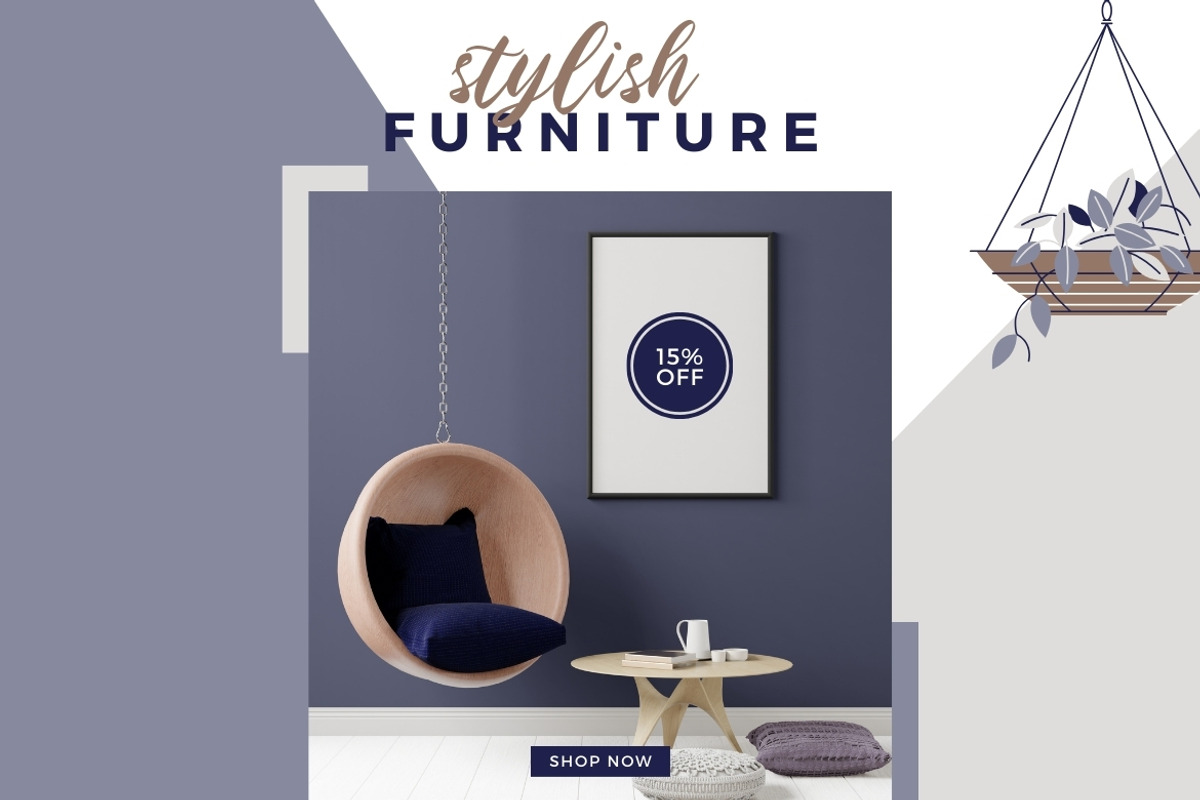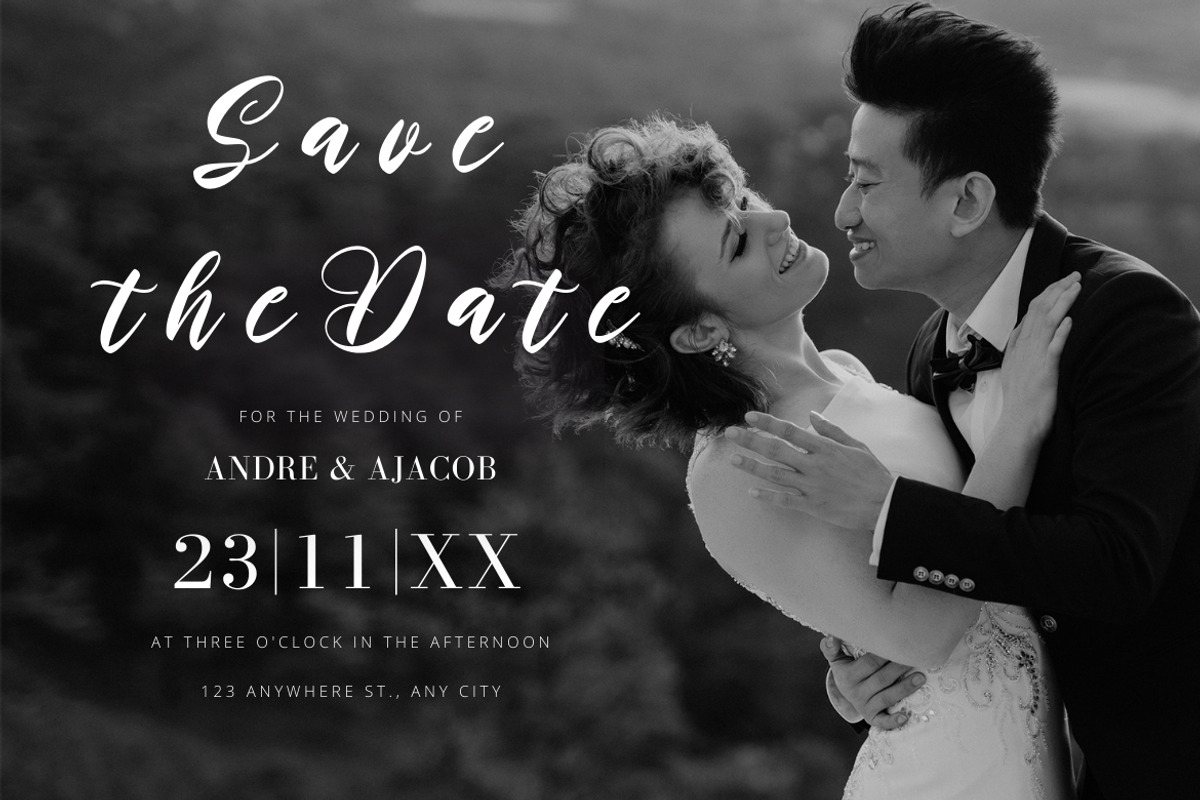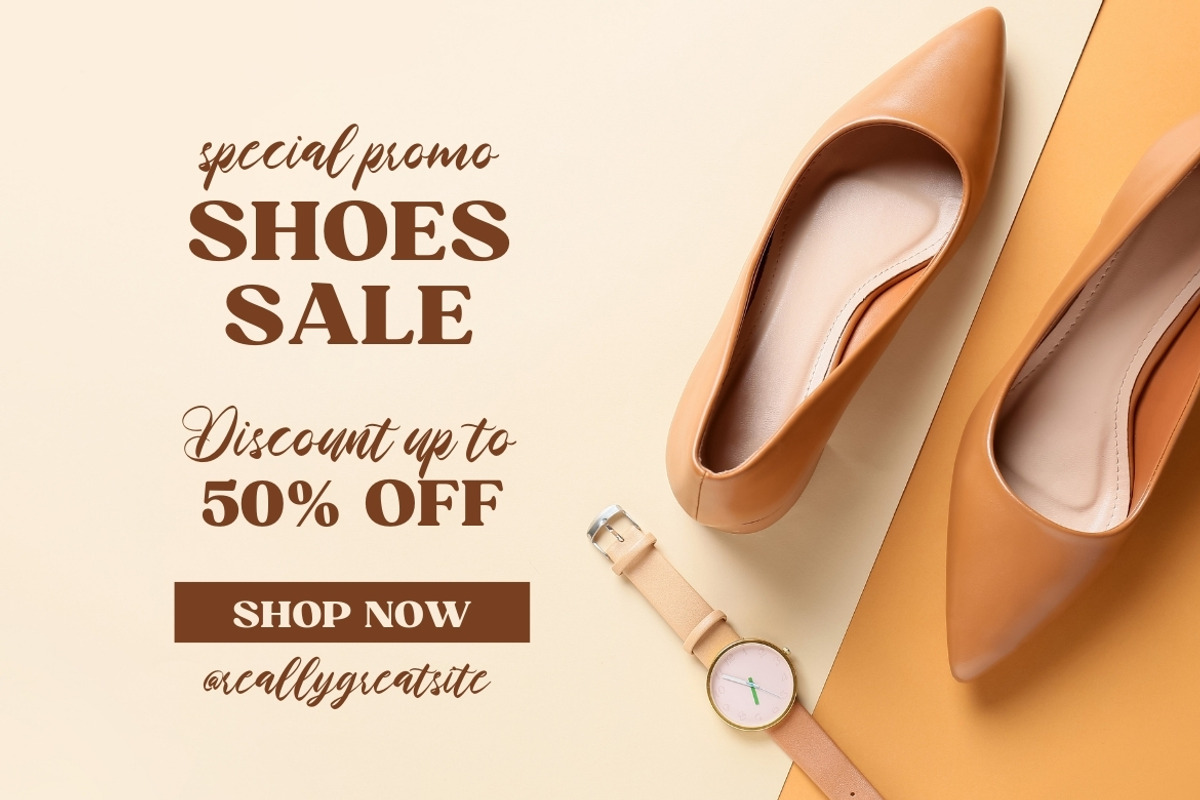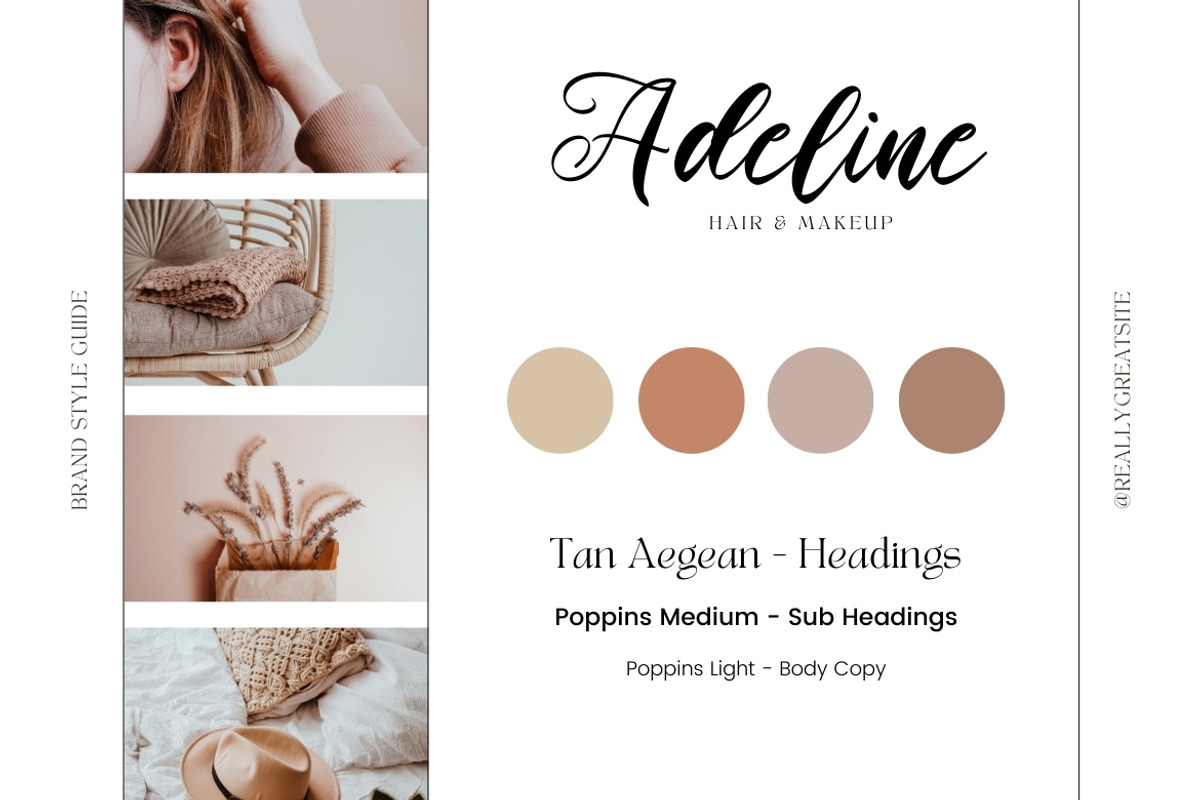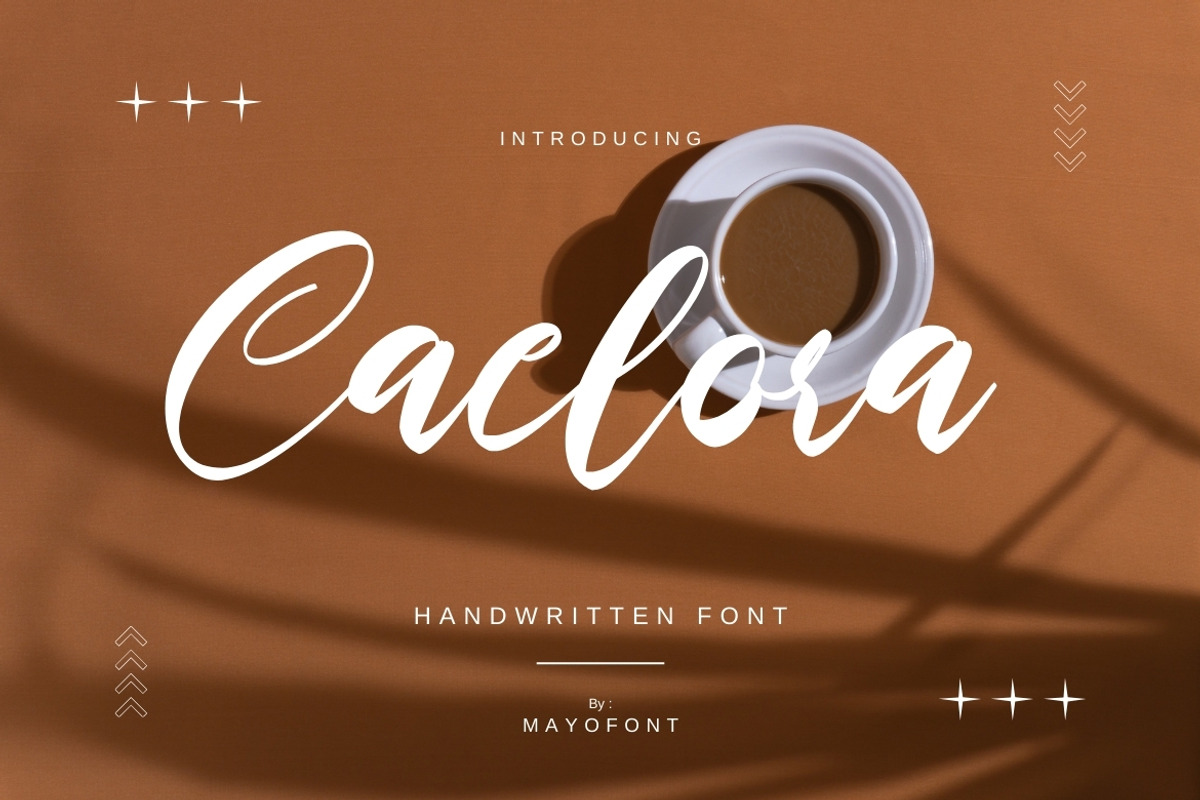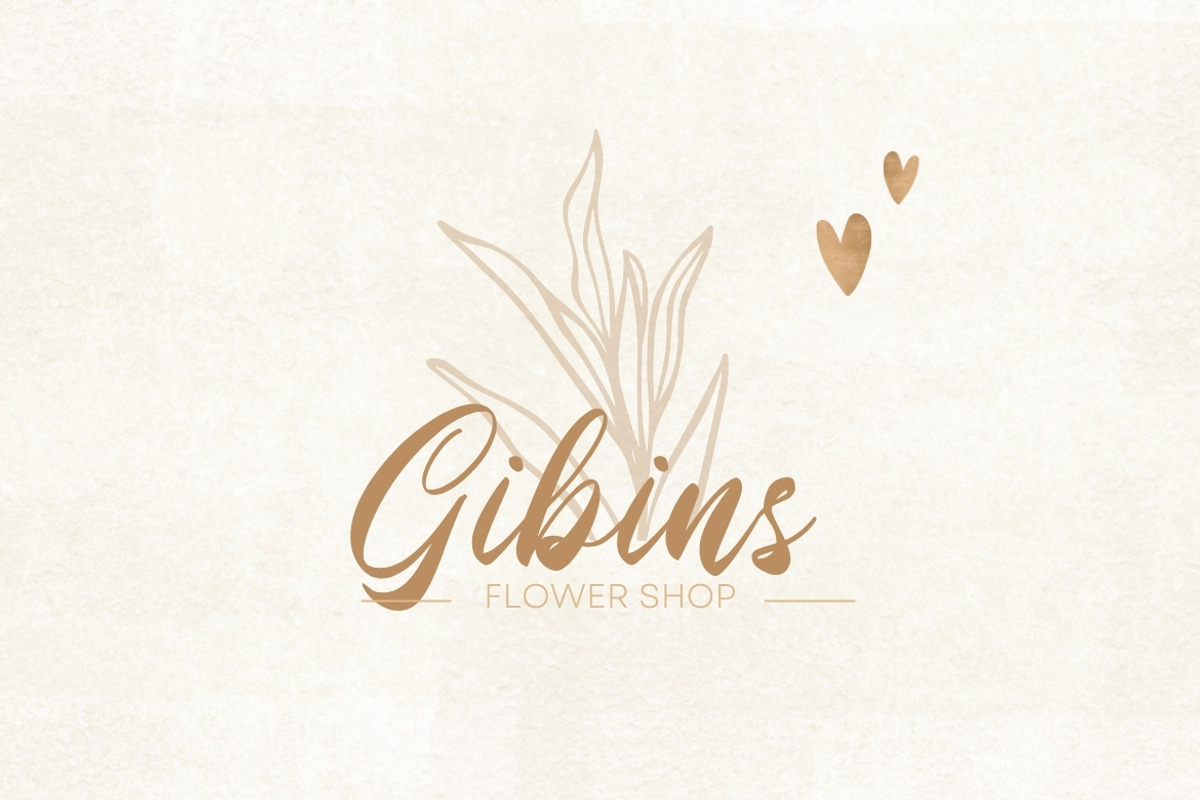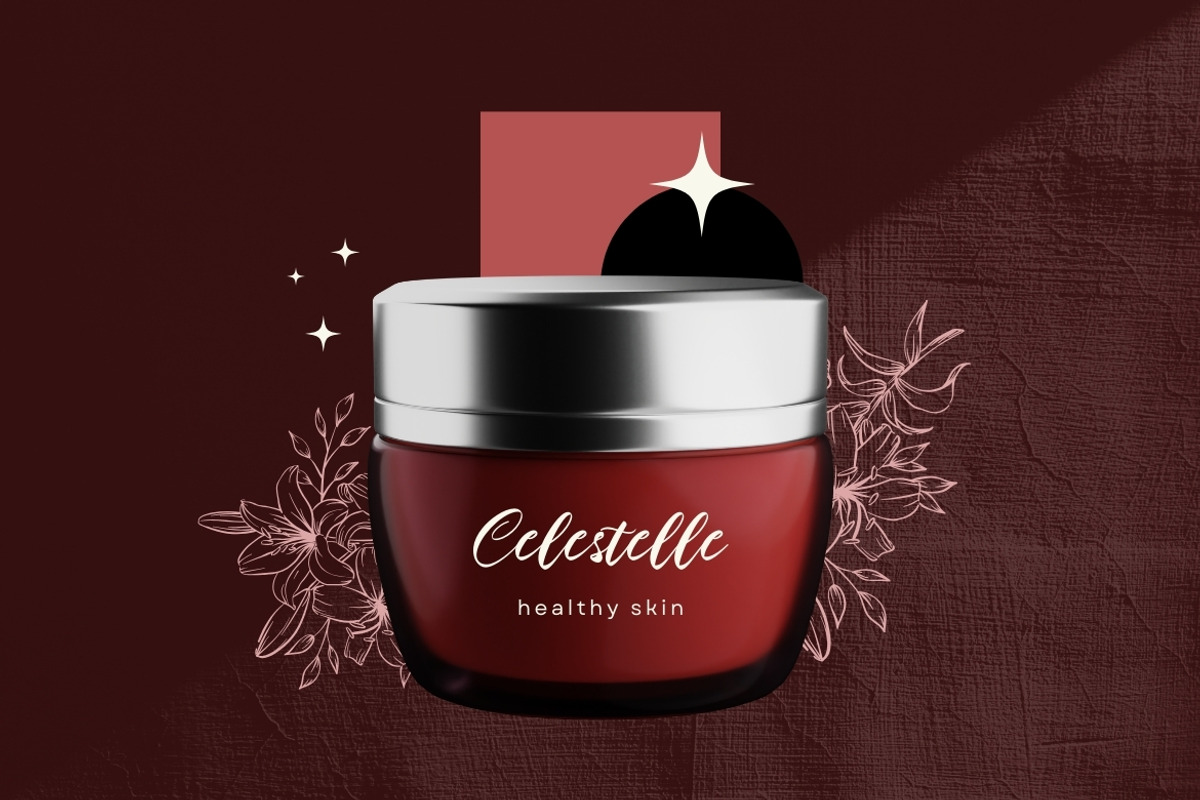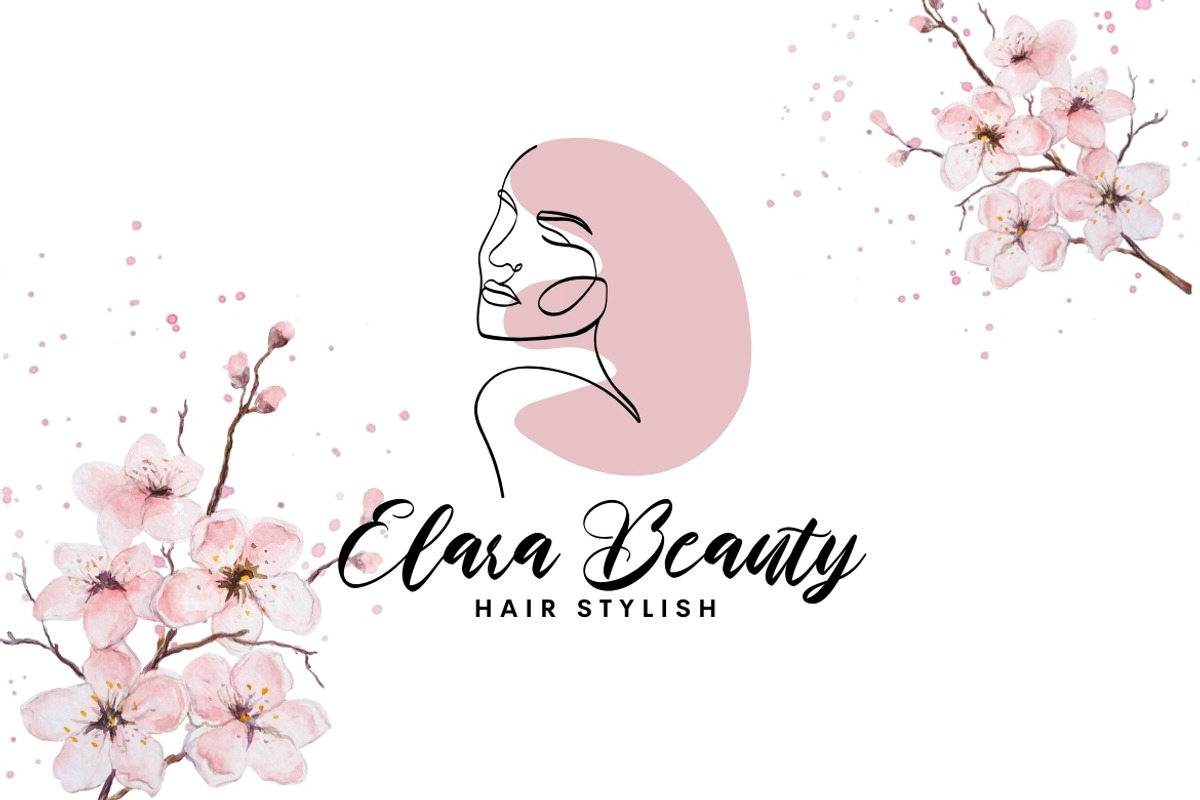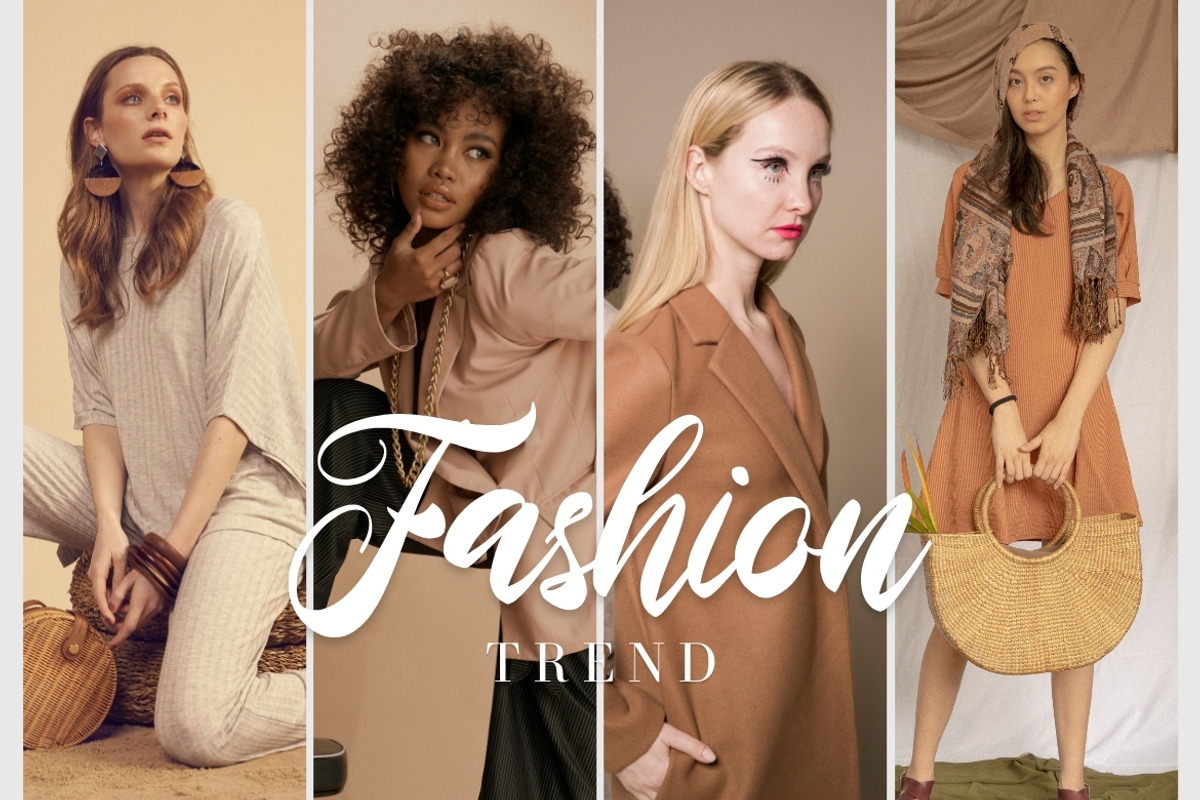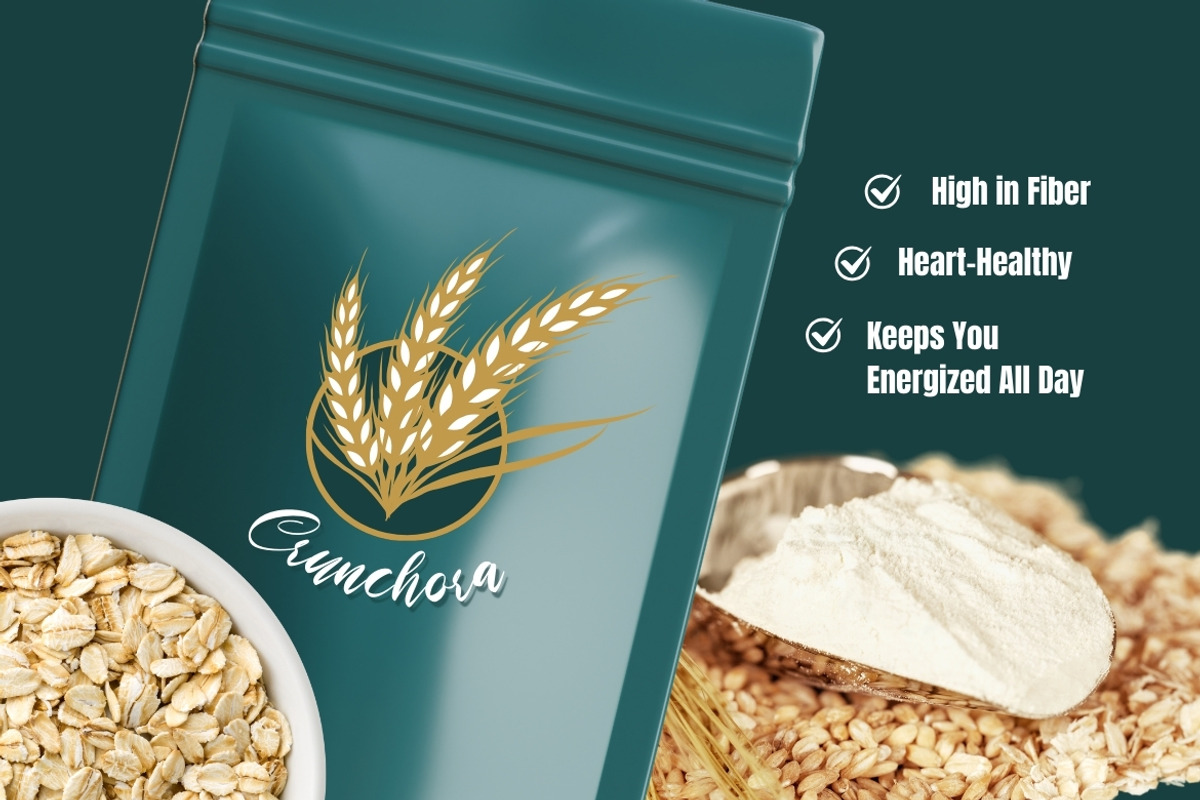
Caelora Handwriting
Caelora Handwritten is a beautifully crafted script font that embodies elegance and natural flow. With its smooth, flowing strokes and delicate curves, this font adds a personal and sophisticated touch to any design. Perfect for branding, invitations, logos, and creative projects, Caelora Handwritten exudes warmth, authenticity, and artistic charm, making every word feel effortlessly stylish.
- multilingual support & ligature